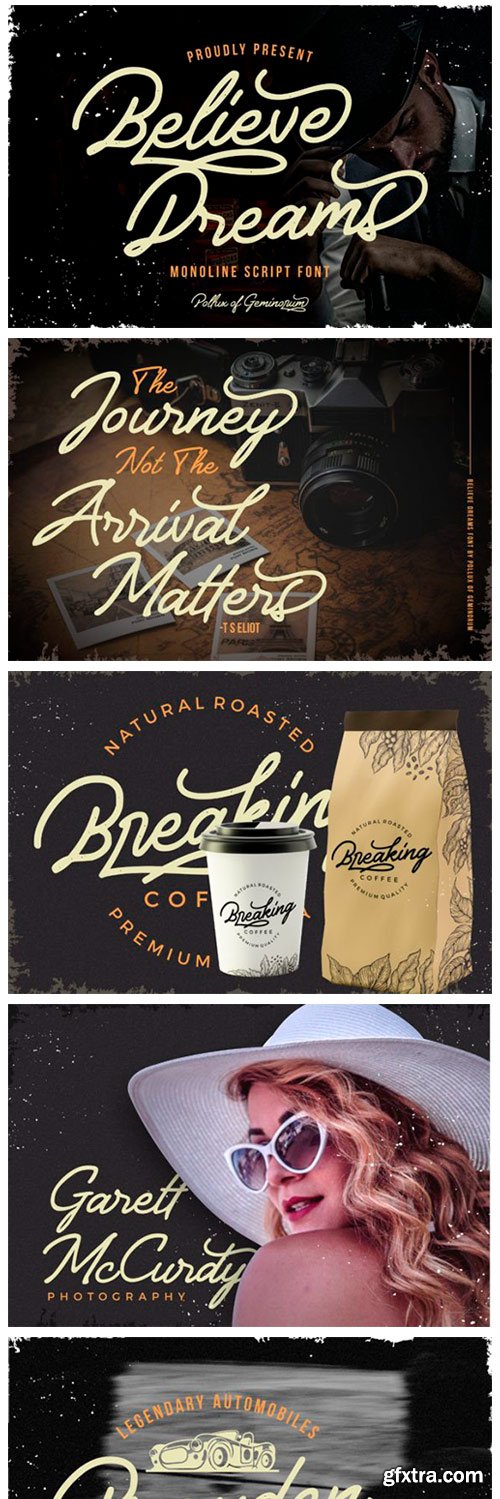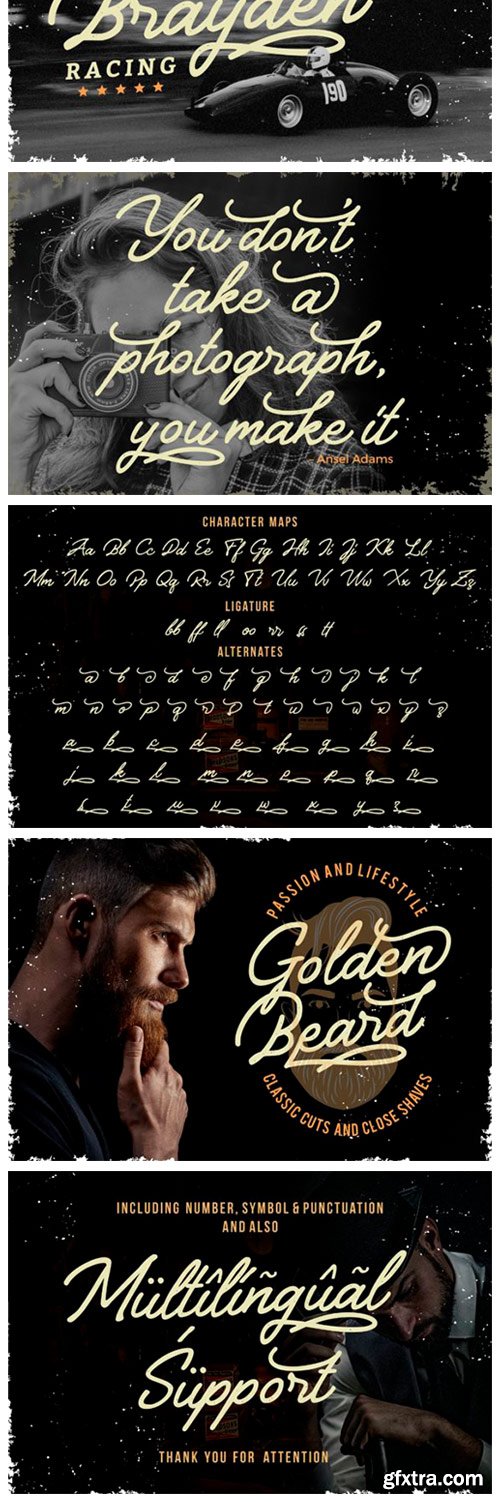
Believe Dreams Font
Believe Dreams is a flowing handwritten font, described by an elegant touch, perfect for your favorite projects. Fall in love with its incredibly distinct and timeless style and use it to create spectacular designs!